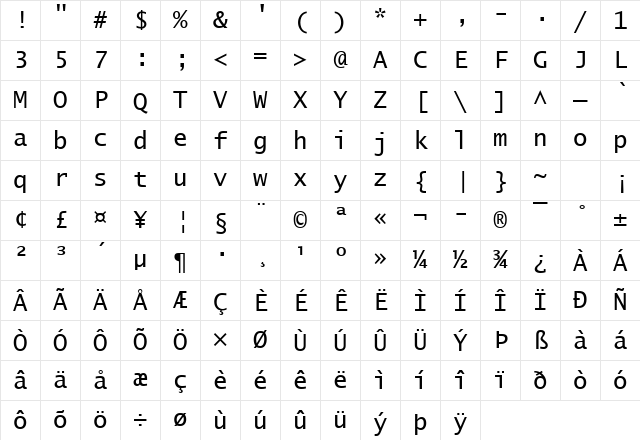
Lucida Becker Sans Typewr Regular
Design Context for Lucida Becker Sans Typewr
Lucida Becker Sans Typewr is a composed and adaptable typeface that performs quietly and consistently across a wide range of design contexts.
Pro Tip: Use Lucida Becker Sans Typewr in both headline and body roles to test its range before committing to a single application.